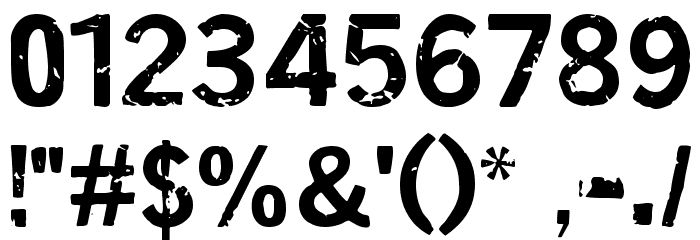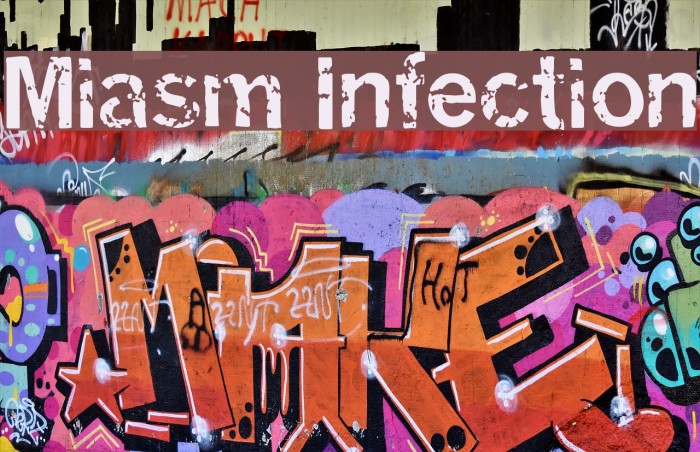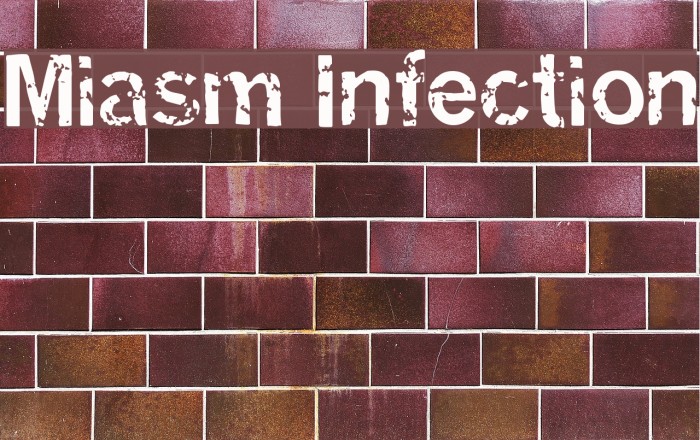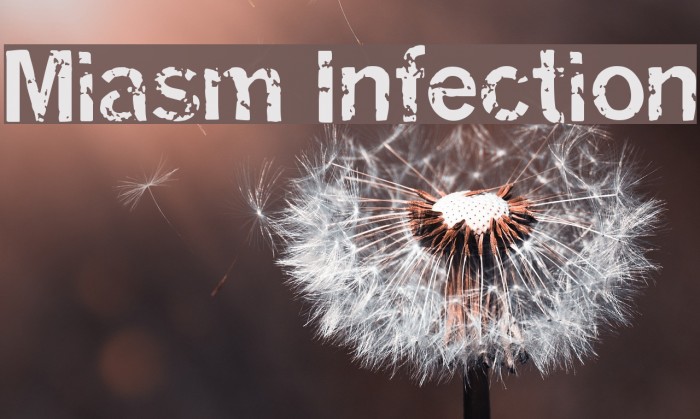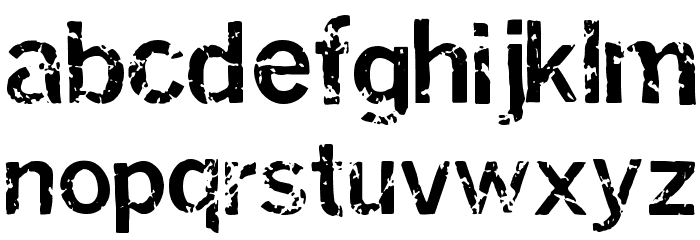
Miasm Infection Font
Miasm Infection Description
This font features a distressed, grunge style with a bold and impactful appearance. The characters are designed with irregular edges and a textured look, giving them a worn and weathered feel. This style is reminiscent of urban street art or vintage posters, making it ideal for projects that require a raw, edgy aesthetic. The uppercase and lowercase letters maintain a consistent weight, while the numbers and special characters follow the same distressed pattern, ensuring a cohesive look across all text elements.
A bold, distressed font with a grunge, textured style from Distorted Eroded fonts.
- Proposed Projects: Ideal for album covers, posters, streetwear branding, and any design needing an edgy, urban vibe.
- Overall Style: Grunge, Urban, Vintage